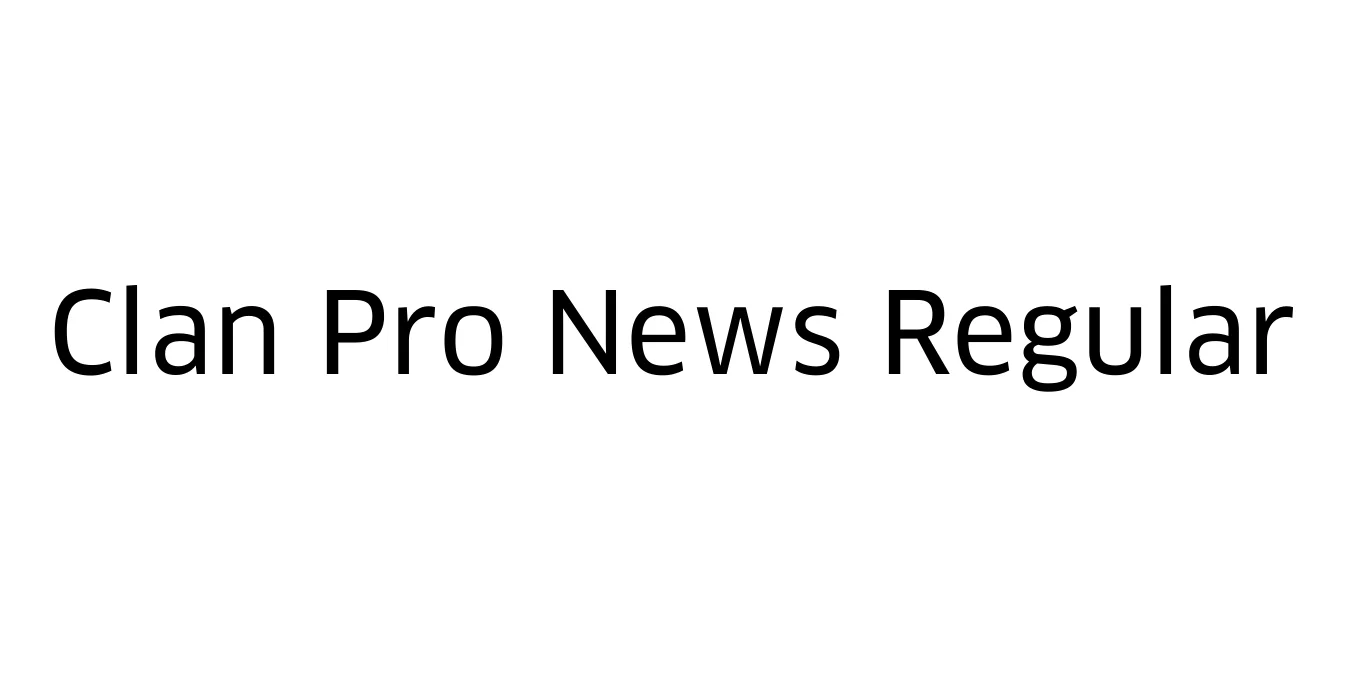
Clan Pro News Regular
Designed by Łukasz Dziedzic
Clan Pro is a comprehensive sans-serif family designed by the renowned Polish type designer Łukasz Dziedzic and published by FontFont. Introduced in the mid-2000s, it stands out as a contemporary humanist sans-serif that balances modern geometric precision with organic warmth. The News weight was specifically engineered to bridge the gap between heavy display weights and thin headlines, providing an optimal weight for continuous reading in dense editorial environments.
The architecture of Clan Pro News is characterized by its large x-height, open counters, and distinctively shaped terminals, which collectively ensure high legibility at small point sizes. Because of its versatility and massive range of weights and widths, the Clan family has become a staple in corporate branding and editorial design, favored by newspapers and tech companies alike for its clean, professional, and sophisticated appearance.
Clan Pro News Regular Best Uses
Optimized for body copy in magazines and newspapers for long-form reading.
Ideal for professional brand identities and official company documentation.
Highly legible on screens for articles, blogs, and user interface elements.
Clear and authoritative for print advertisements and promotional materials.